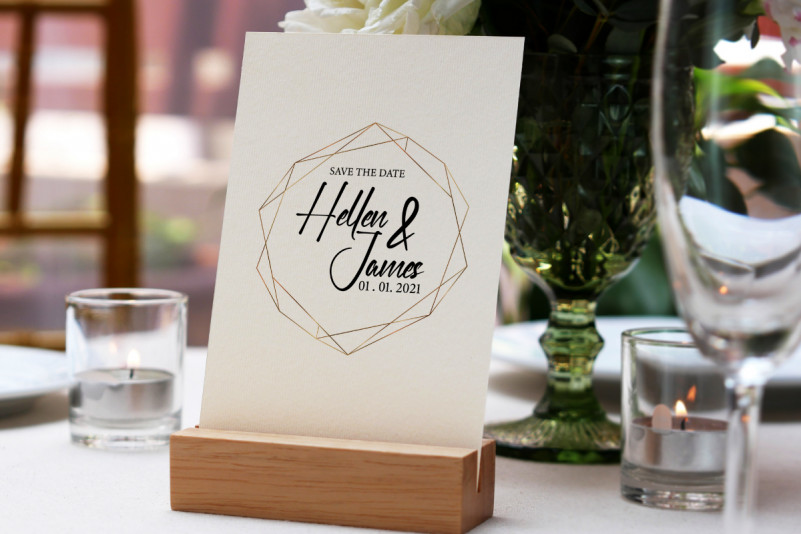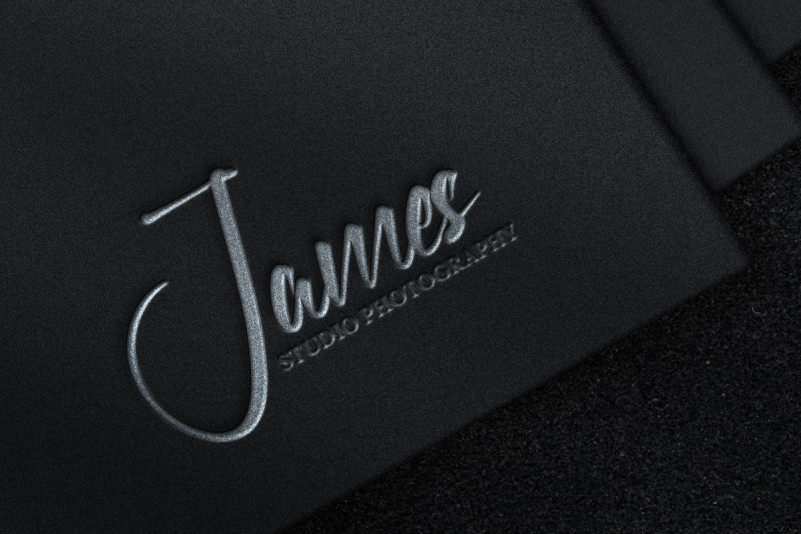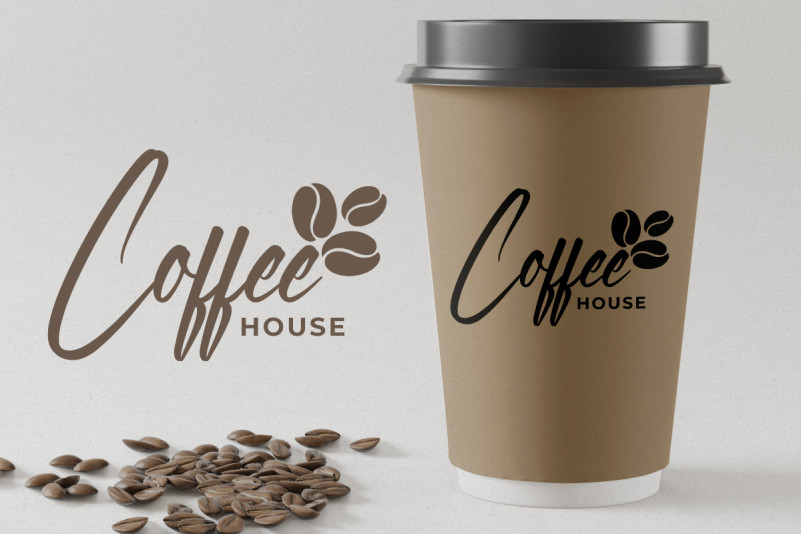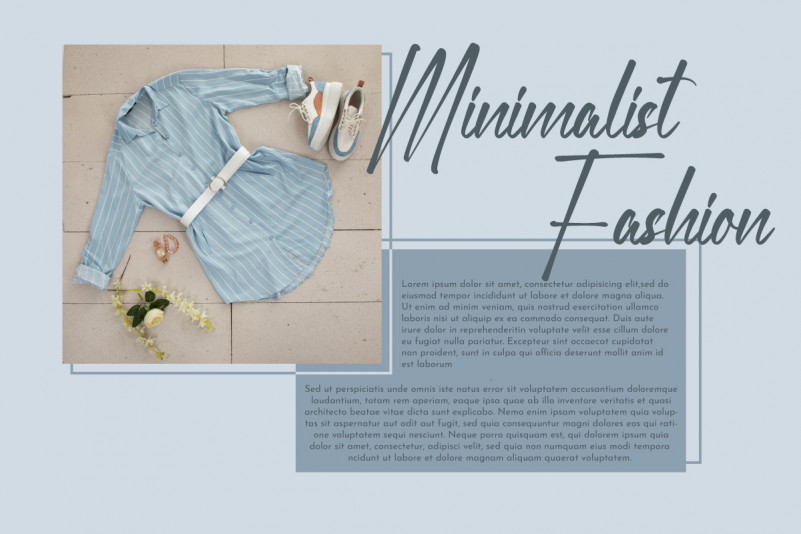
Reiley Font
Reiley Script Font
This font will be great for any of your special projects including : weddings, promotion, events, branding, advertising, magazine, shopping, signage, invitation, stationery, social media posts, product packaging, product designs, label, photography, watermark or and any projects that need handwriting style. Reiley Font includes full set of gorgeous uppercase and lowercase letters, numerals, a large range of punctuation and ligatures. We made it looks simple yet stunning brush looks, giving realistic hand-lettered style.